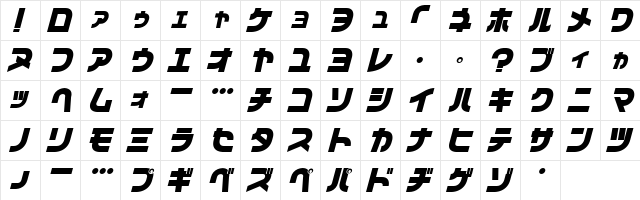
I2Vifam Regular Font Preview
I2Vifam Regular
I2Vifam Regular Font Details
Design Context for I2Vifam Typeface
I2Vifam is a composed and adaptable typeface that performs quietly and consistently across a wide range of design contexts.